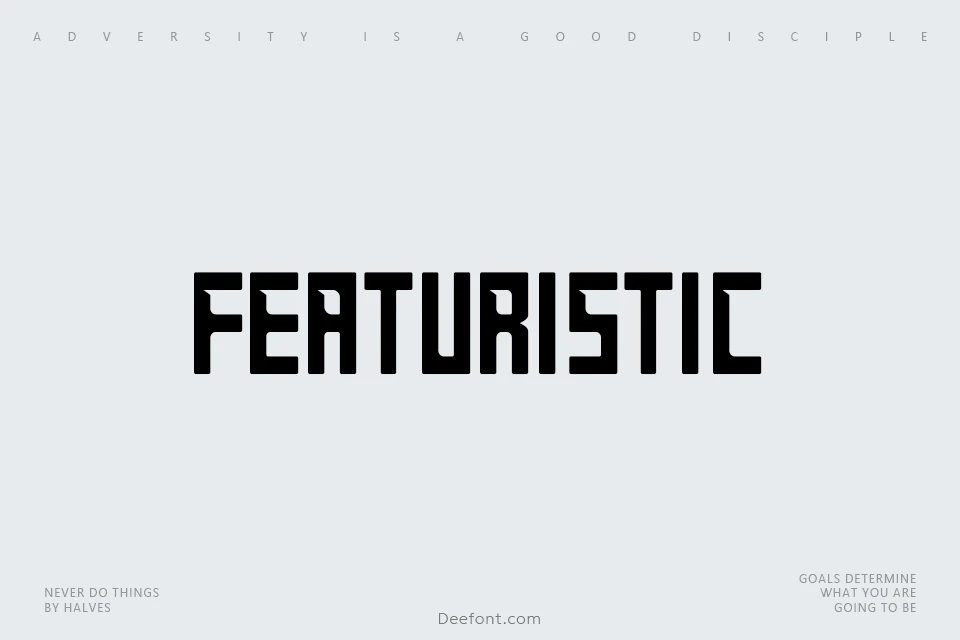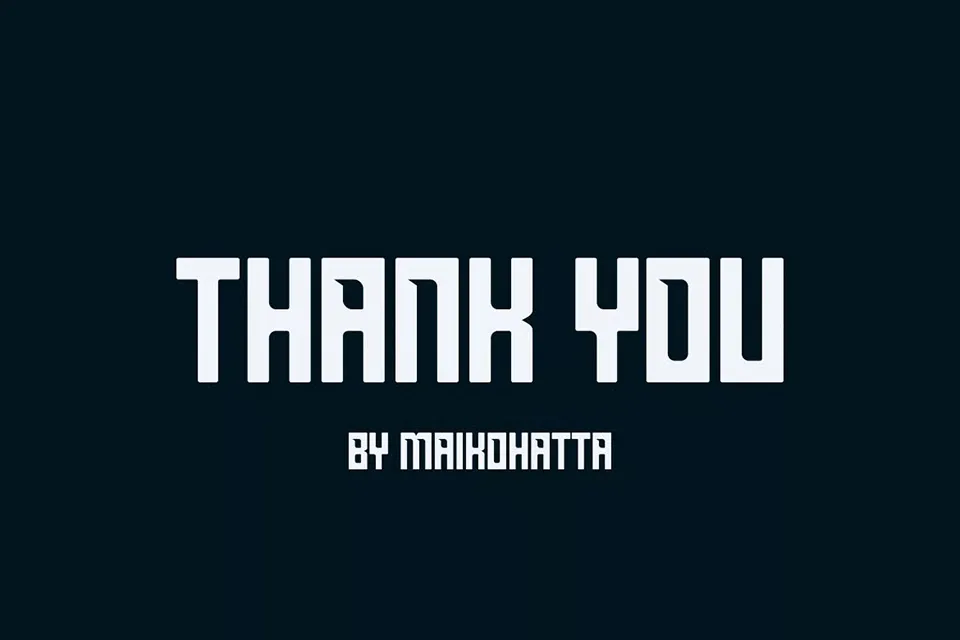
Featuristic techno Font
Featuristic techno Font is a bold and authentic display typeface designed for impactful branding projects. Its modern techno style makes it ideal for logos, templates, esports, and a wide range of creative contexts, ensuring your designs stand out with a futuristic edge.